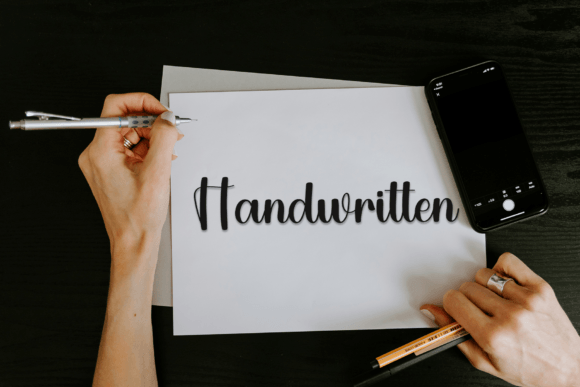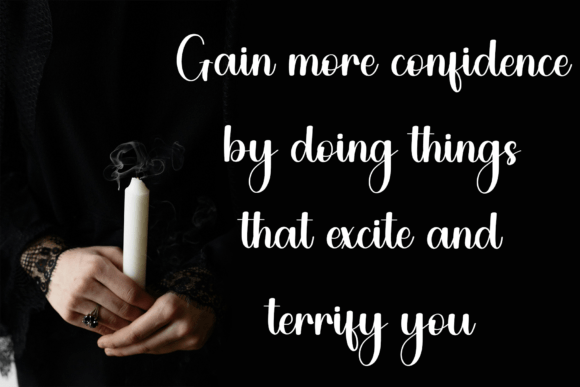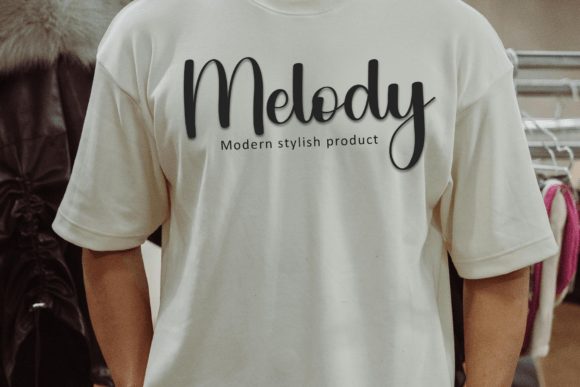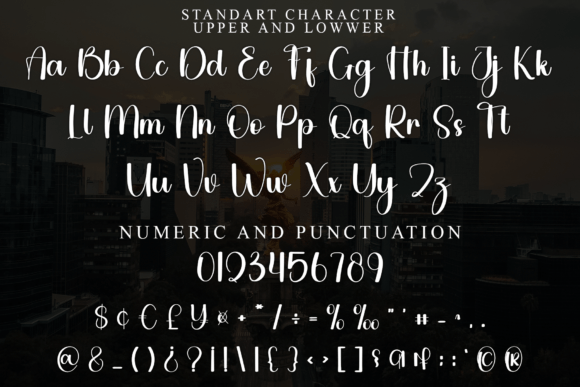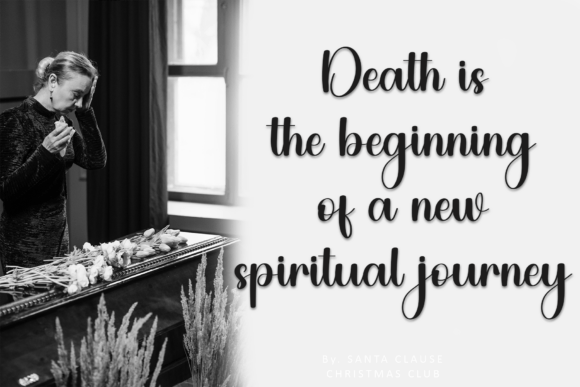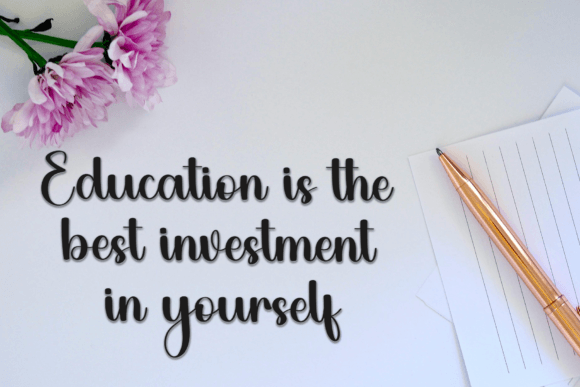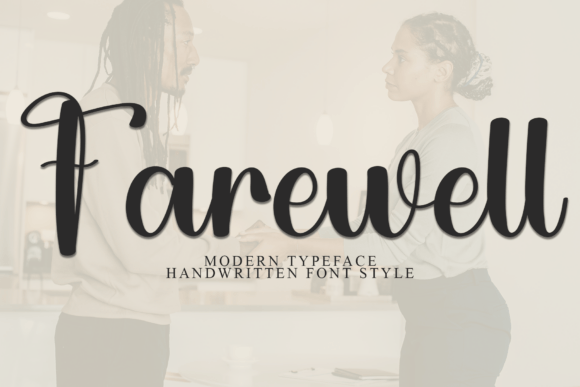
Introducing Farewell Font: Elevate Your Designs with Elegance and Sophistication
In the world of typography, a font can make or break the aesthetic of a design project. For designers and crafters seeking to infuse their work with a touch of elegance and sophistication, the Farewell Font is an exceptional choice. This stylish, beautiful, and elegant font boasts a contemporary atmosphere and impeccable form, drawing inspiration from timeless classic calligraphy.
A Timeless Classic with a Modern Twist
Farewell Font is not just another typeface; it’s a design statement. Its roots in traditional calligraphy provide a sense of heritage and classic beauty, while its contemporary design elements ensure it remains fresh and relevant. This balance makes Farewell Font versatile enough to be used in a variety of design projects, from wedding invitations and event branding to digital content and packaging.
Key Features of Farewell Font
- PUA Encoded for Easy Access: One of the standout features of Farewell Font is its PUA (Private Use Area) encoding. This means that accessing the amazing glyphs and ligatures is straightforward, allowing designers to explore a wide range of creative possibilities without needing specialized software.
- Balanced and Varied: The font has been carefully crafted to offer a balanced look with a variety of characters, ensuring that your text remains legible and aesthetically pleasing, whether used in headings or body text.
- Elegant and Sophisticated: With its roots in classic calligraphy, Farewell Font brings an air of sophistication to any project. Its elegant strokes and beautiful ligatures make it perfect for designs that require a high level of formality or romanticism.
- Contemporary Atmosphere: While inspired by the classics, Farewell Font has a contemporary edge that makes it suitable for modern design projects. Its clean lines and fluid curves ensure it fits right in with today’s design trends.
Applications of Farewell Font
The versatility of Farewell Font makes it suitable for a wide array of applications. Here are some ways designers and crafters can utilize this elegant font:
- Wedding and Event Stationery: Create stunning wedding invitations, save the dates, and event banners that set the tone for a sophisticated and memorable occasion.
- Branding and Packaging: Elevate your brand with a distinctive and elegant typeface that communicates luxury, quality, and attention to detail.
- Digital Content: Enhance your digital platforms, such as blogs, websites, and social media graphics, with a font that stands out and engages your audience.
- Graphic Design Projects: From posters and flyers to brochures and magazines, Farewell Font can add a touch of class and professionalism to any print material.
Why Choose Farewell Font?
In a sea of fonts, Farewell Font stands out for several reasons:
- Unique Aesthetic: It offers a unique blend of classic elegance and modern design, making it a valuable addition to any designer’s toolkit.
- High Versatility: Its adaptability across various design projects and mediums makes it a practical choice for designers looking for a font that can do it all.
- User-Friendly: The PUA encoding ensures that using the font’s extensive features is easy and hassle-free.
Farewell Font is more than just a typeface; it’s a design solution for those looking to add a layer of elegance, sophistication, and modernity to their projects. Whether you’re a professional designer or a DIY crafter, this font offers the tools you need to create visually stunning and impactful designs. With its timeless classic inspiration and contemporary twist, Farewell Font is poised to become a go-to choice for a wide range of design applications.